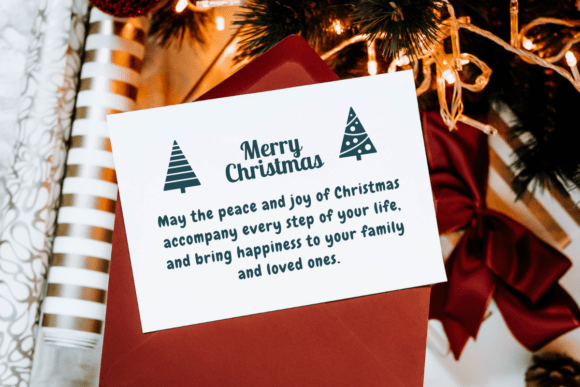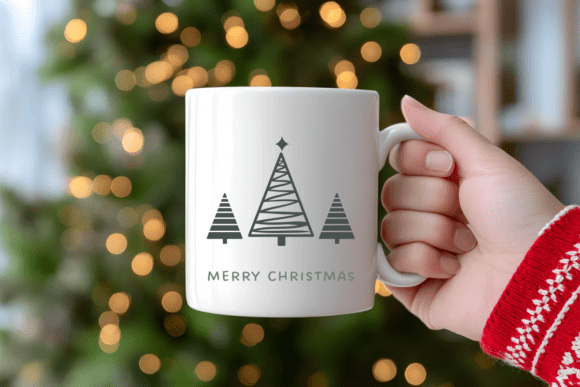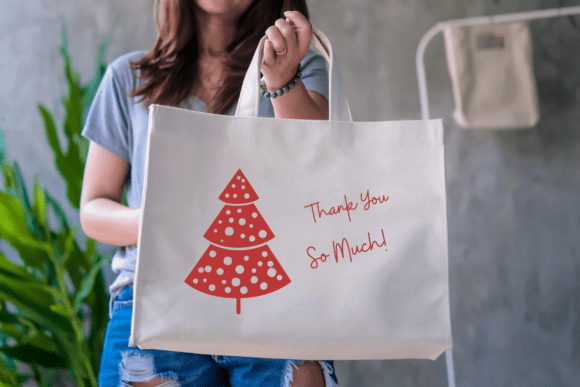
Introduction to Lovely Christmas Trees Font
Lovely Christmas Trees Dingbats Font Bring the magic of the holidays to life with Lovely Christmas Trees, a delightful dingbat font packed with charming tree illustrations that capture the joy and warmth of Christmas.
Each character unveils a beautifully stylized tree β€” from elegant minimalist outlines to playful, patterned silhouettes Whether you’re designing festive cards, holiday invitations, winter crafts, or digital art, this font instantly adds a touch of Christmas cheer.
Key Features of Lovely Christmas Trees Font
Why Choose Lovely Christmas Trees Font?